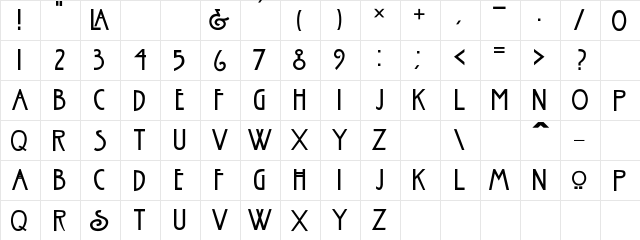
Esmount Regular Font Preview
Esmount Regular
Design Context for Esmount Typeface
Esmount is a composed and adaptable typeface that performs quietly and consistently across a wide range of design contexts.
Pro Tip: Use Esmount in both headline and body roles to test its range before committing to a single application.